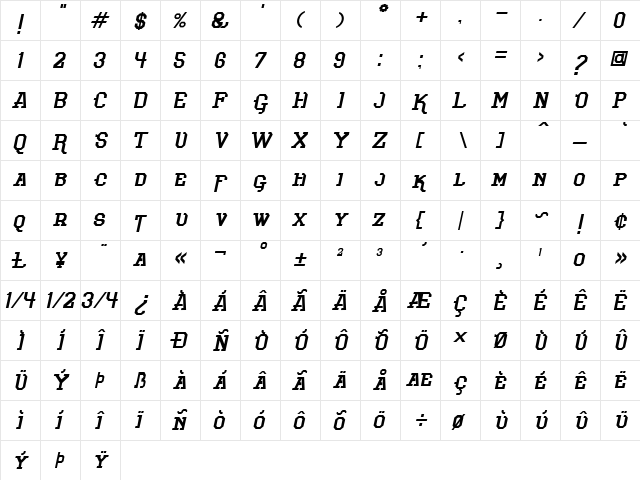
Voetter Italic
Design Context for Voetter Typeface
Voetter is a composed and adaptable typeface that performs quietly and consistently across a wide range of design contexts. The dynamic lean of this cut emphasises speed and emphasis in any layout.
Pro Tip: Try Voetter for annotation and caption copy alongside an upright companion — the contrast in angle creates a dynamic but ordered typographic system.